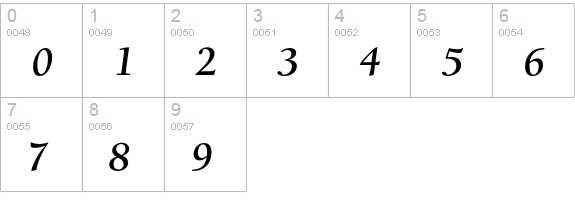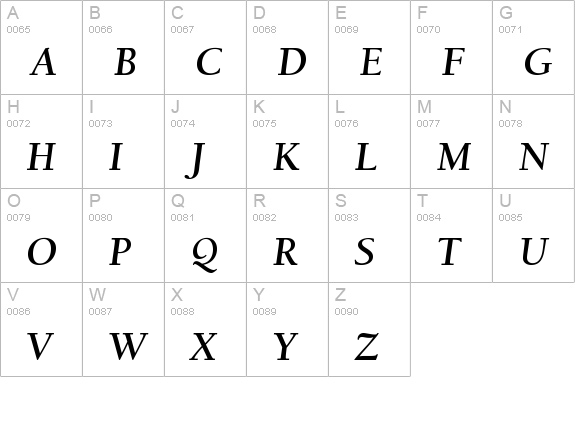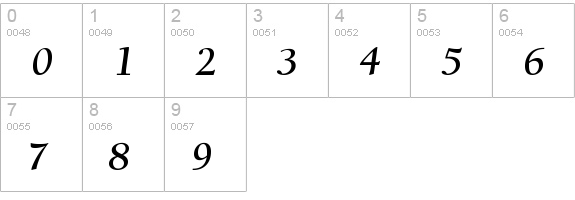
BerkeleyOldStyleEF-BoldItalic Font Details
BerkeleyOldStyleEF-BoldItalic font is a timeless and elegant typeface that exudes sophistication and charm. Its bold and italic design adds a touch of flair to any project, making it perfect for headlines, titles, and other prominent text elements. The classic serifs and unique letter shapes give this font a distinctive and memorable look that sets it apart from the rest. And the best part? BerkeleyOldStyleEF-BoldItalic font is completely free to download at FontsMarket.com. This means you can add this stunning font to your collection without any cost, making it a valuable asset for designers, creatives, and anyone looking to elevate their typography game. Don't miss out on this opportunity to enhance your projects with the beauty and versatility of BerkeleyOldStyleEF-BoldItalic font, available for free at FontsMarket.com.